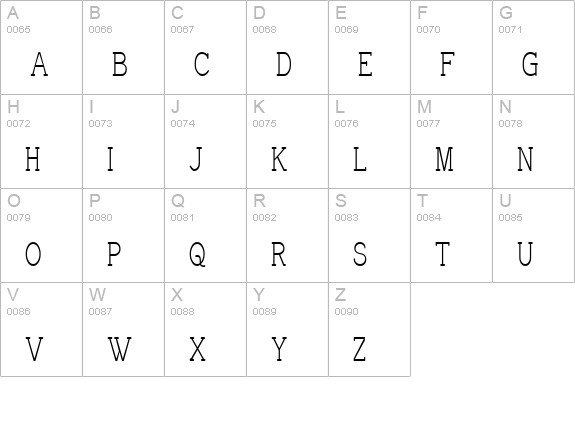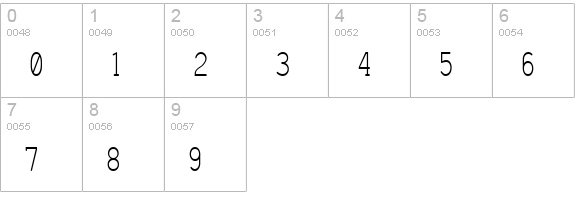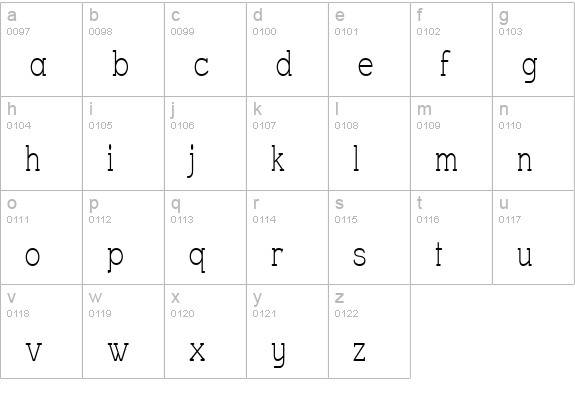
Charrington Narrow is a distinctive, condensed-width variant in the Charrington typeface family \xE2\x80\x94 well suited to design and typography projects.
Charrington Narrow is a sleek and modern typeface that exudes elegance and sophistication. With its clean lines and sharp edges, this font is perfect for projects that require a touch of contemporary flair. The narrow design of Charrington Narrow makes it ideal for creating eye-catching headlines, logos, and branding materials. Whether you're working on a website, brochure, or social media graphics, this font will elevate your design and give it a polished look. The best part? Charrington Narrow is available for free download at FontsMarket.com! Simply visit the website and add this stunning font to your collection without spending a dime. Don't miss out on the opportunity to enhance your projects with the stylish and versatile Charrington Narrow font. Download it now and take your designs to the next level!